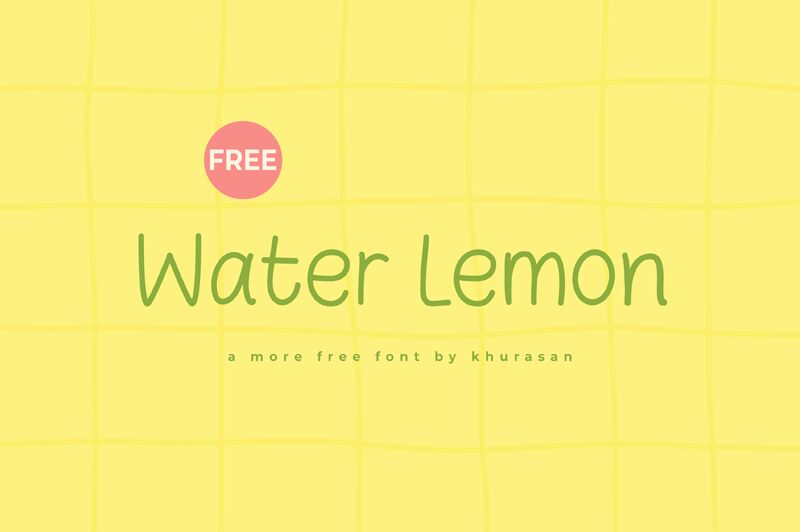
Water Lemon
Water Lemon font designed by Khurasan is a casual handwritten font with an organic feel and humanistic touch. Offering easy readability, this font gives off an aesthetic human touch that makes any text more fascinating and professional. It mostly has high-waist letters with little difference in the weight of its symbolic characters.